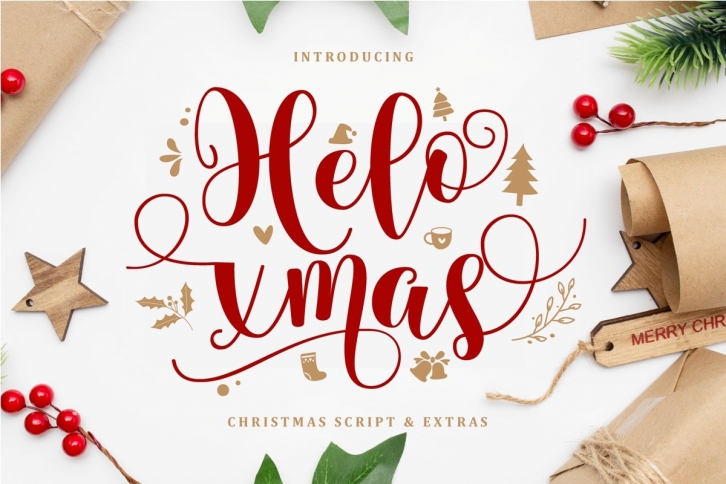
Helo xmas is a Christmas Script font and an extra font containing doodle illustration.
Helo xmas It looks stunning on wedding invitations, thank you cards, quotes, greeting cards, logos, business cards and every other design which needs a handwritten touch.
This font is PUA encoded which means you can access all of the glyphs and swashes with ease! It features a varying baseline, smooth lines, gorgeous glyphs and stunning alternates
Please check all lowercase, uppercase and numerals to access all Doodle in font format. The best tool if you want to create t-shirt designs, mug designs, logos or just play around.
The font has PUA Unicode (Private Use Areas - font specific code), so that all the alternative characters (with flourishes and swirly lines) can be easily accessed in full through Windows and Mac and you can load them into applications such as Cricut Design Space and Silhouette Studio.